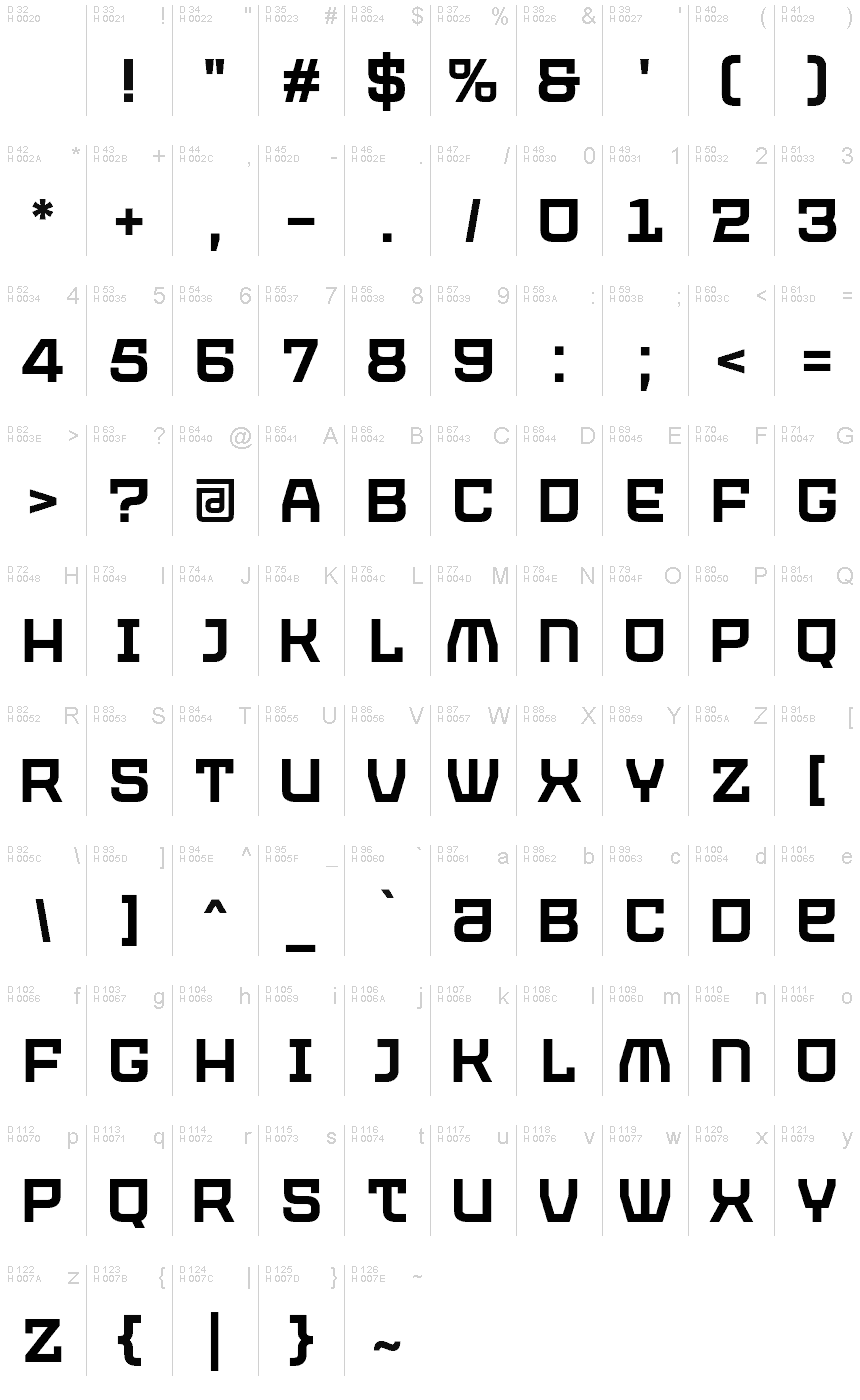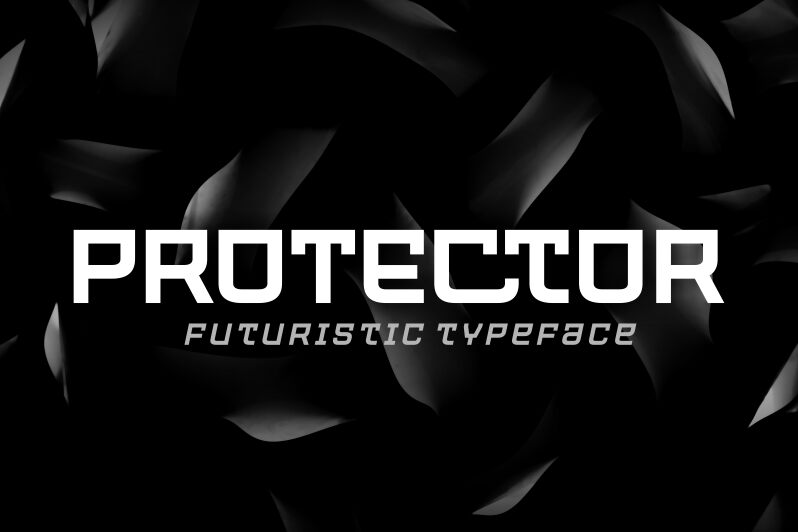
PROTECTOR
Protector is a bold, geometric font that exudes a sense of strength and resilience. Designed by Situjuh Nazara, its sharp, angular letterforms create a striking visual impact, making it well-suited for a wide range of design applications. From headers and titles to branding and packaging, the Protector font's distinctive aesthetic lends itself to projects that require a strong, authoritative presence. Its clean, minimalist style also allows it to effectively convey a sense of modern sophistication.
Whether used for editorial design, digital interfaces, or large-scale signage, Protector's versatility and eye-catching appeal make it a compelling choice for designers seeking a font that commands attention.